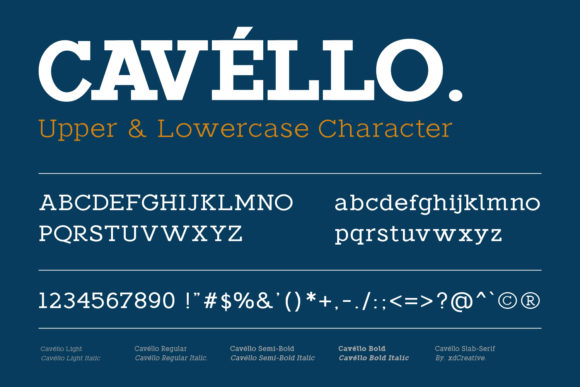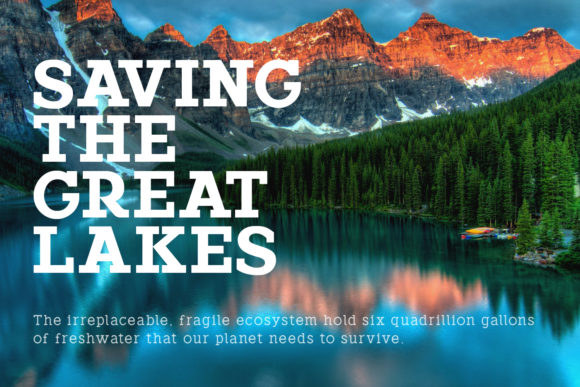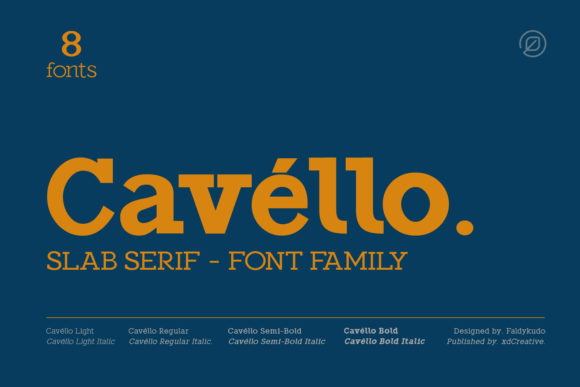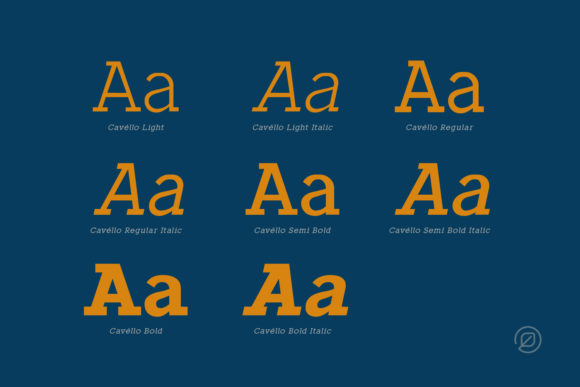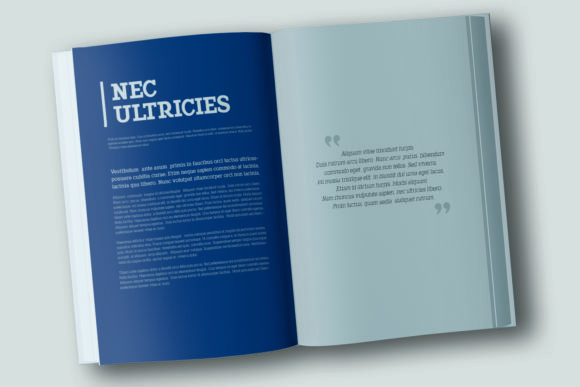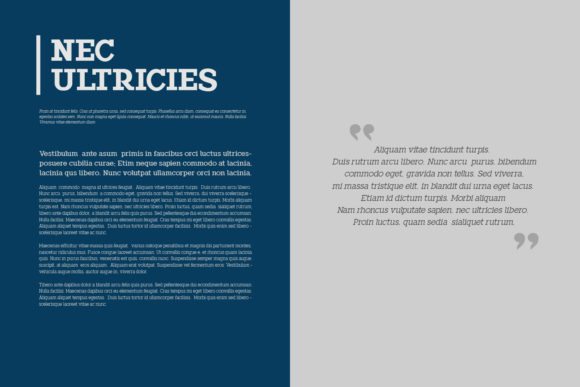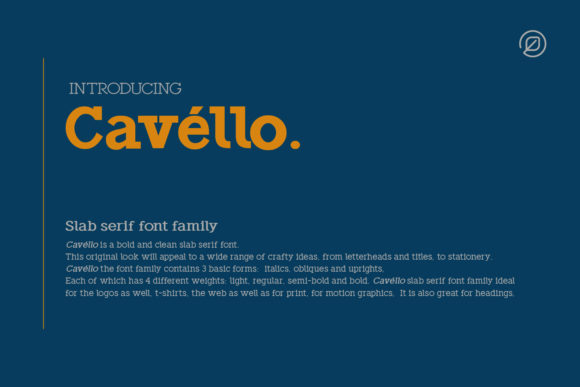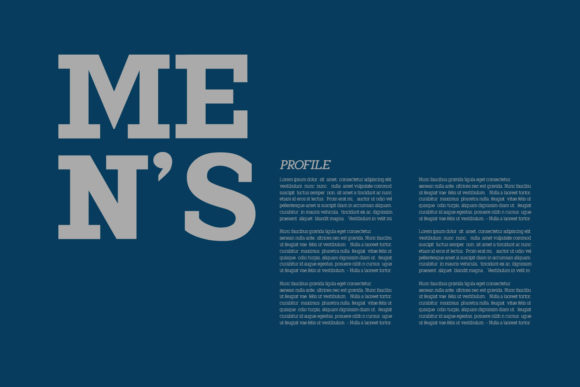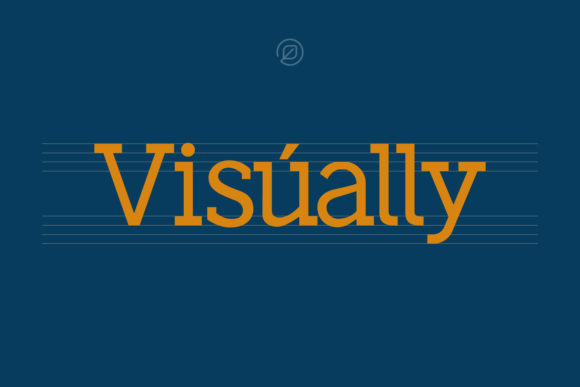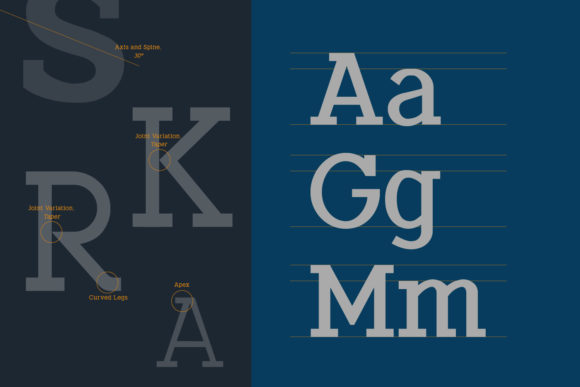
Cavéllo
Cavéllo: A Bold and Clean Slab Serif Font Family
Cavéllo is a distinctive slab serif font family that combines boldness with a clean, elegant aesthetic. This versatile typeface offers designers a powerful tool for creating impactful typography across a wide range of creative projects.
Key Features of Cavéllo
• Bold Design: Features a strong, eye-catching appearance that commands attention
• Clean Aesthetic: Offers a crisp and elegant look
• Versatile Application: Suitable for a wide range of creative ideas
• Comprehensive Family: Includes multiple weights and styles for flexibility
• Slab Serif Structure: Incorporates the characteristic thick, rectangular serifs typical of slab serif fonts
Font Styles
Cavéllo comes in a comprehensive family of 8 styles:
• Light and Light Italic
• Regular and Regular Italic
• Semi Bold and Semi Bold Italic
• Bold and Bold Italic
Ideal Uses for Cavéllo
Cavéllo’s unique characteristics make it particularly well-suited for:
• Logo design
• Letterheads and titles
• Stationery design
• T-shirt graphics
• Web and print design
• Motion graphics
• Headings and display text
When incorporating Cavéllo into your designs, consider the following tips:
• Utilize different weights to create hierarchy and visual interest
• Experiment with italic styles for emphasis or contrast
• Consider pairing with sans-serif fonts for body text to create balance
• Take advantage of its versatility in both digital and print applications
Cavéllo is an excellent choice for designers looking to add a bold, clean, and versatile slab serif to their typographic toolkit. Its range of styles and weights makes it adaptable to various design contexts. Whether you’re working on logo designs, creating layouts for stationery, or developing branding for various projects, Cavéllo offers the perfect blend of boldness and elegance.
Explore how Cavéllo can bring a bold and clean edge to your creative ideas. From striking logos to elegant letterheads, this font family provides the tools to create impactful and versatile typography that stands out in various design contexts.